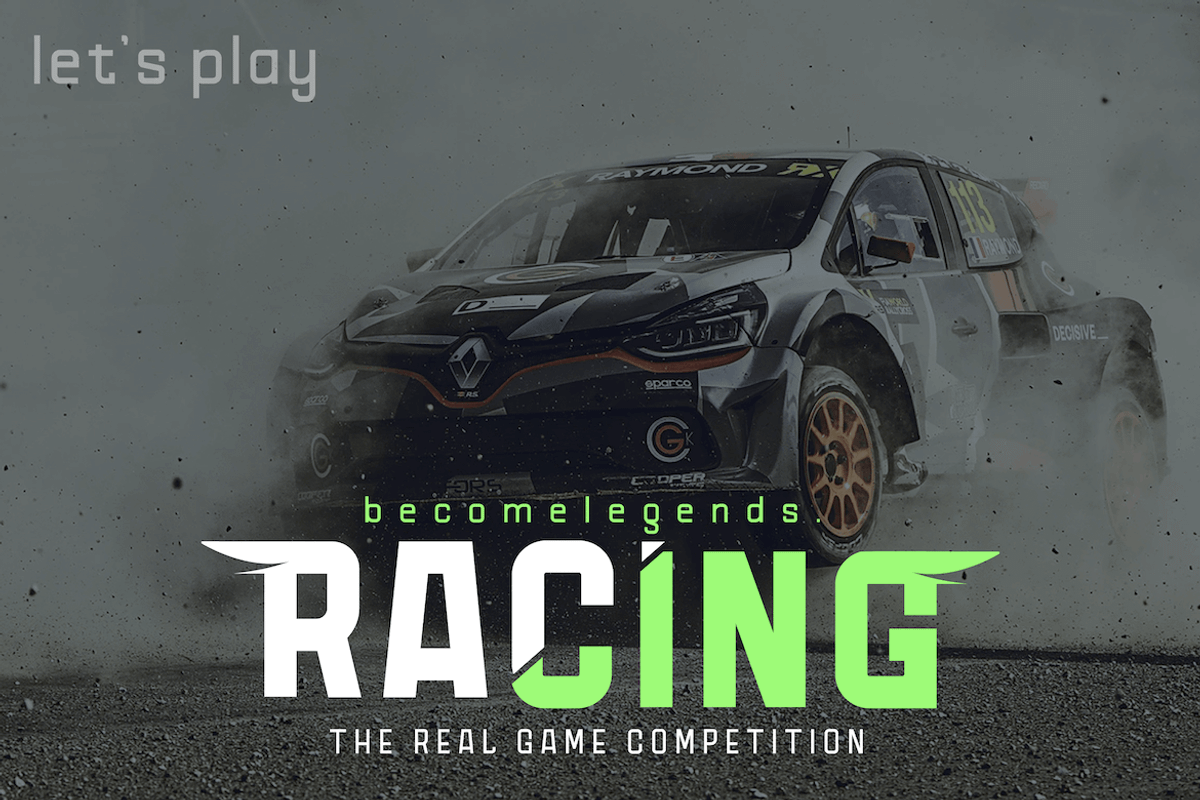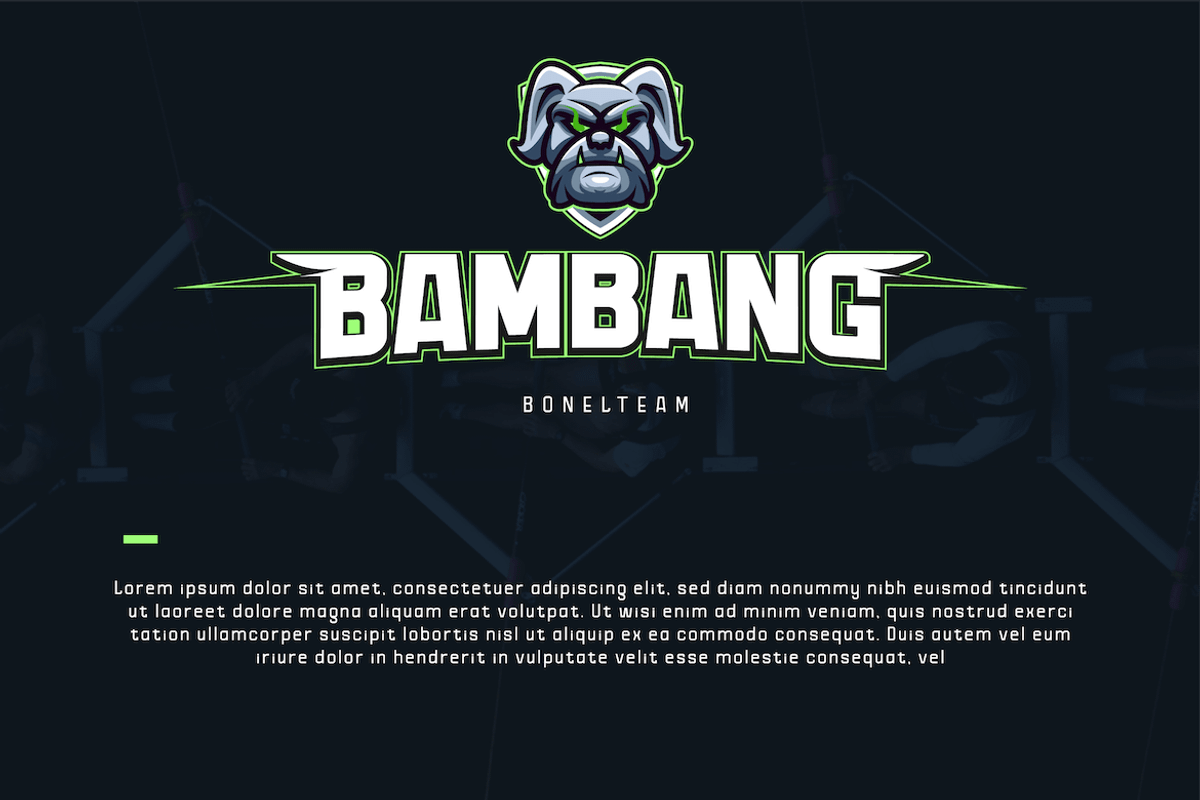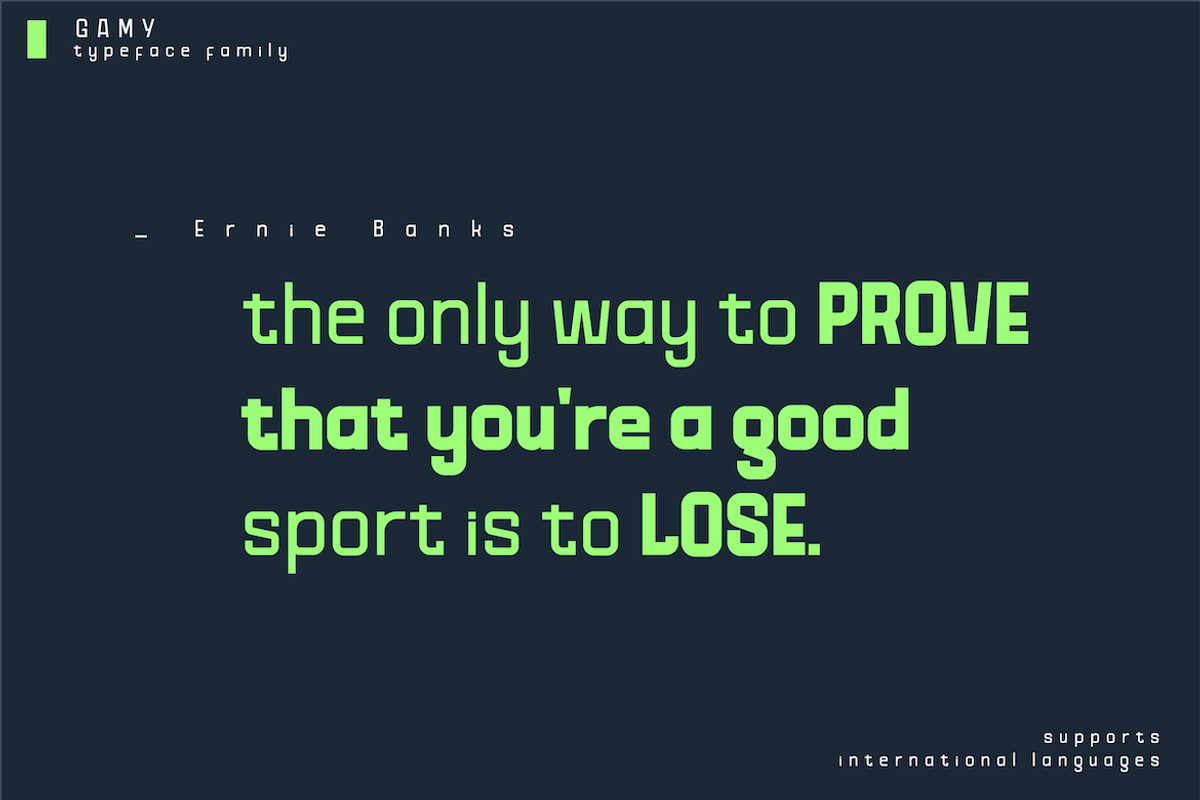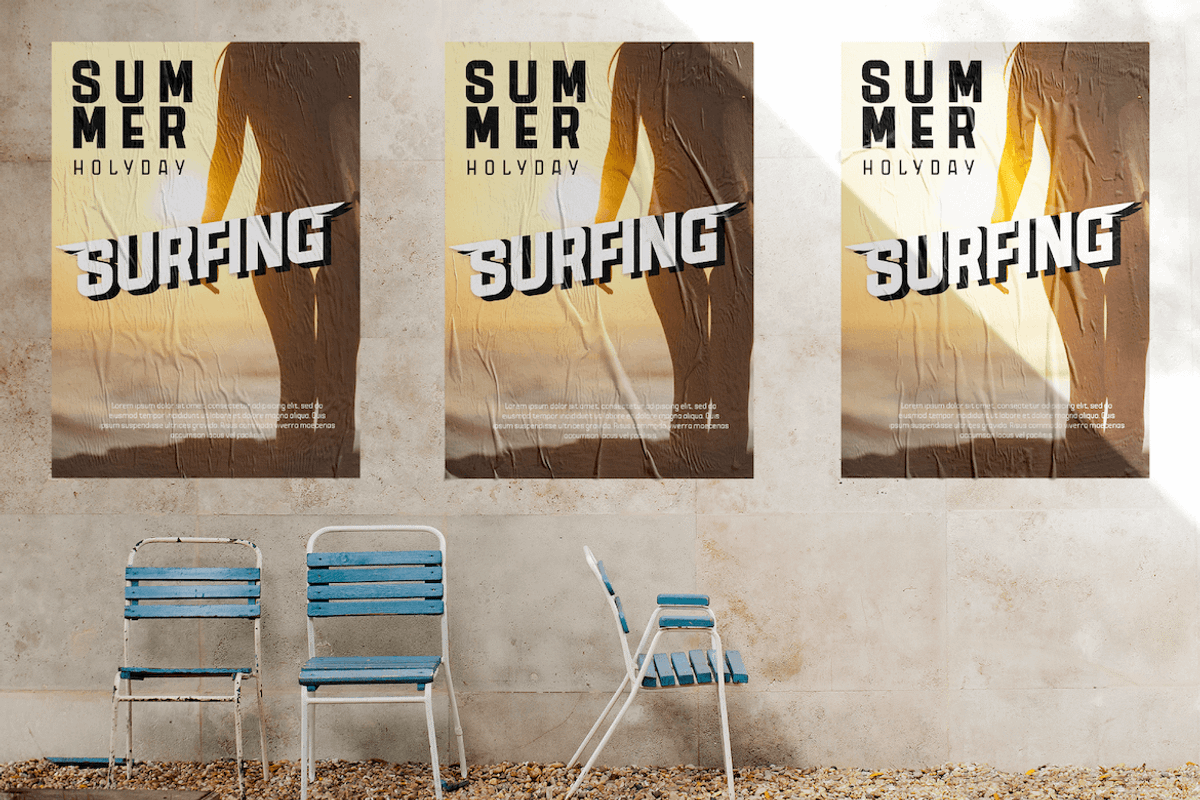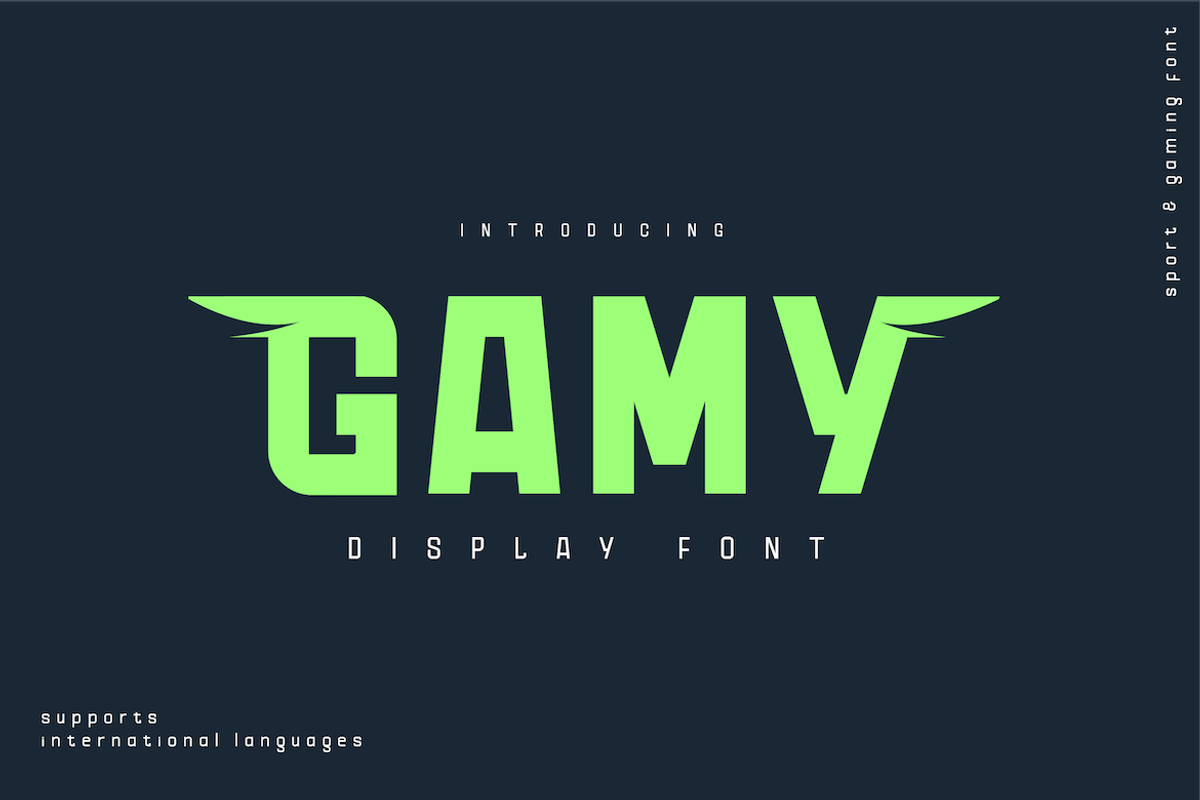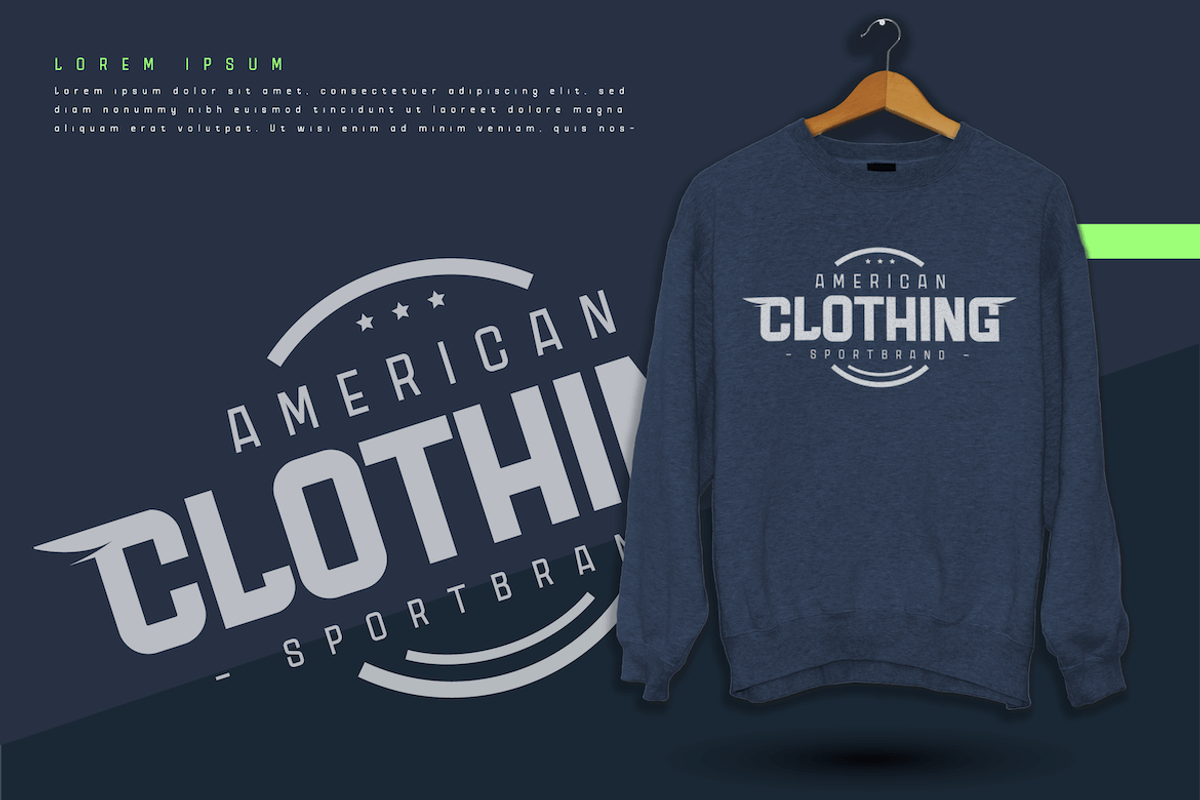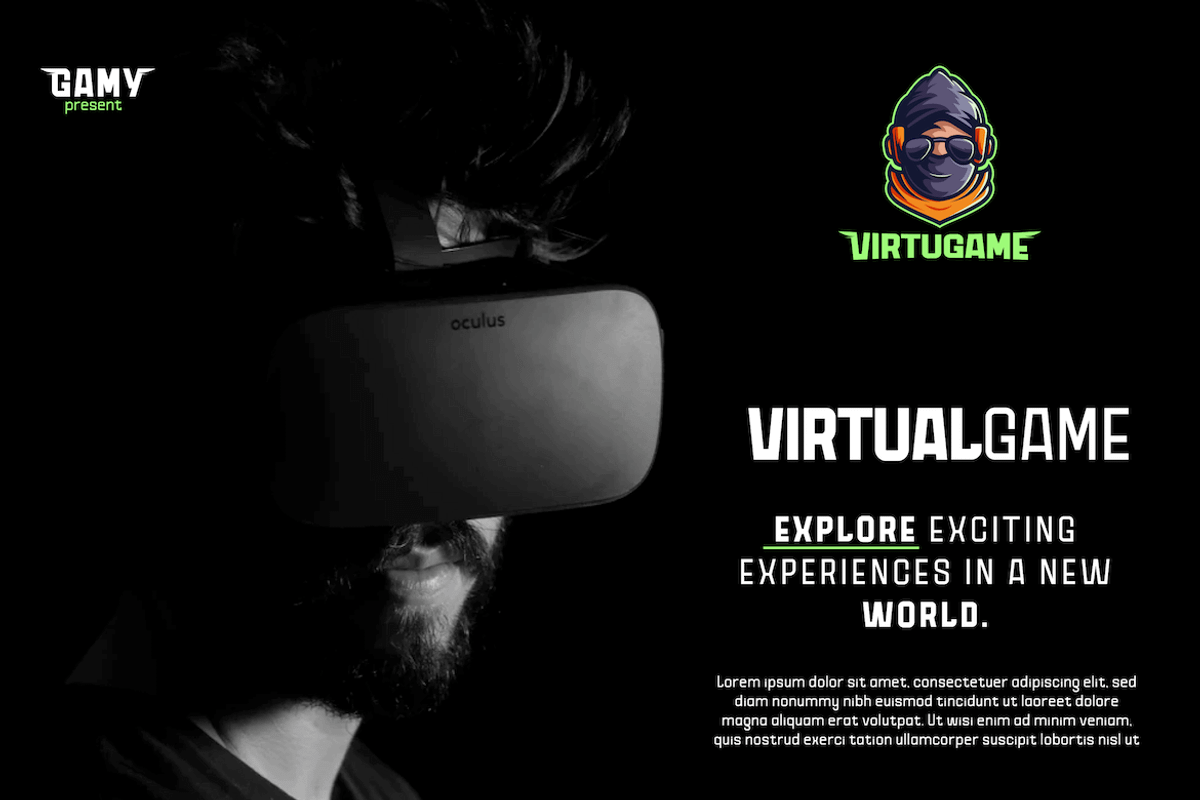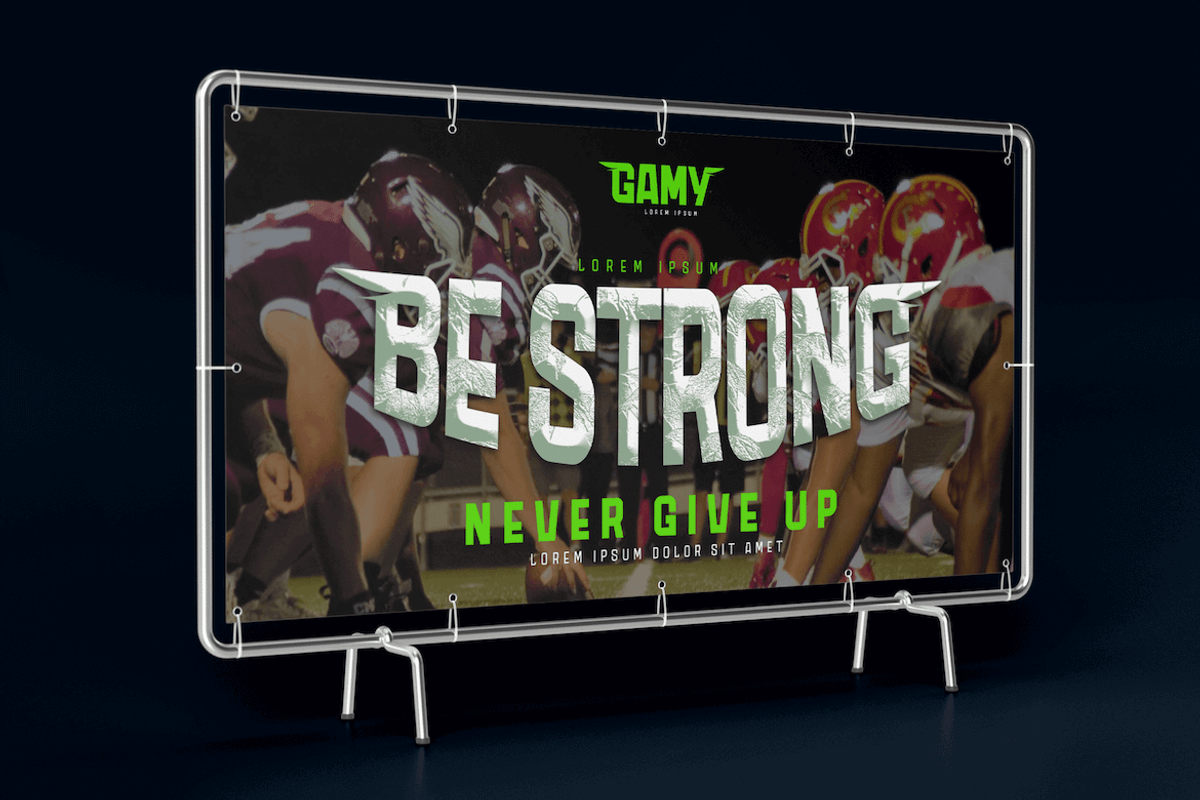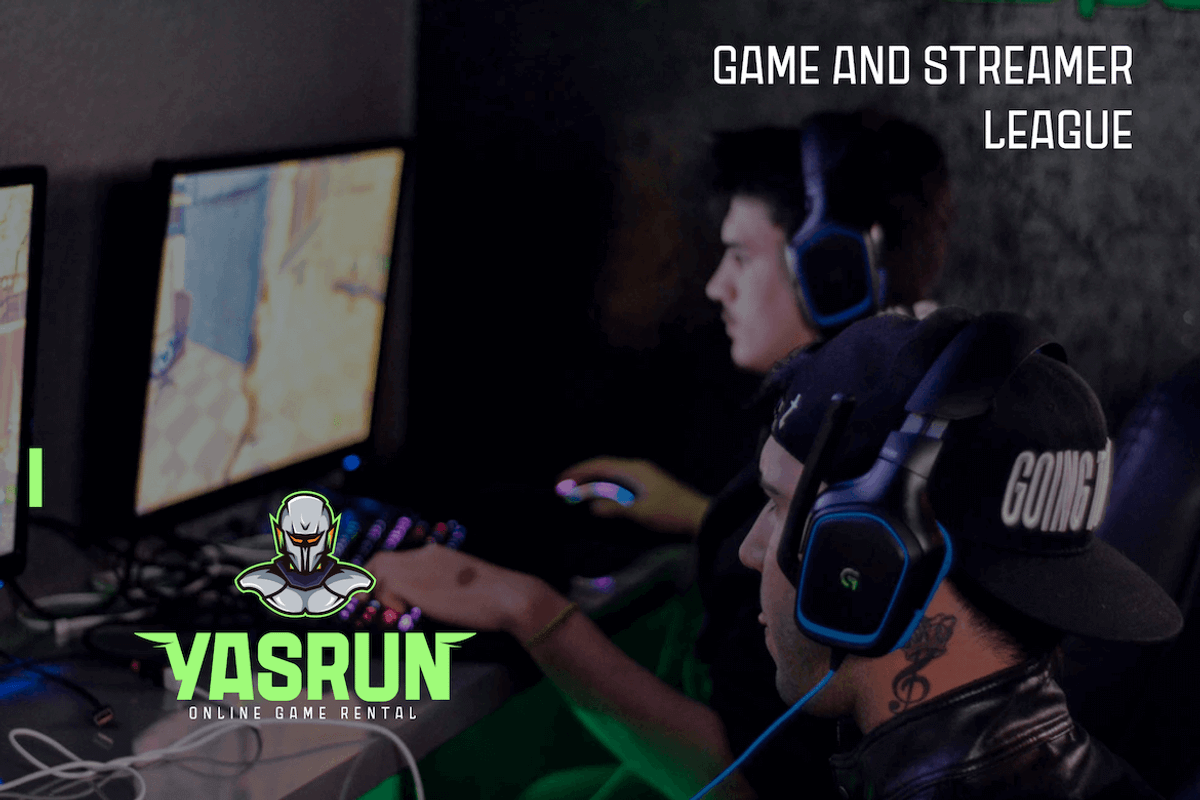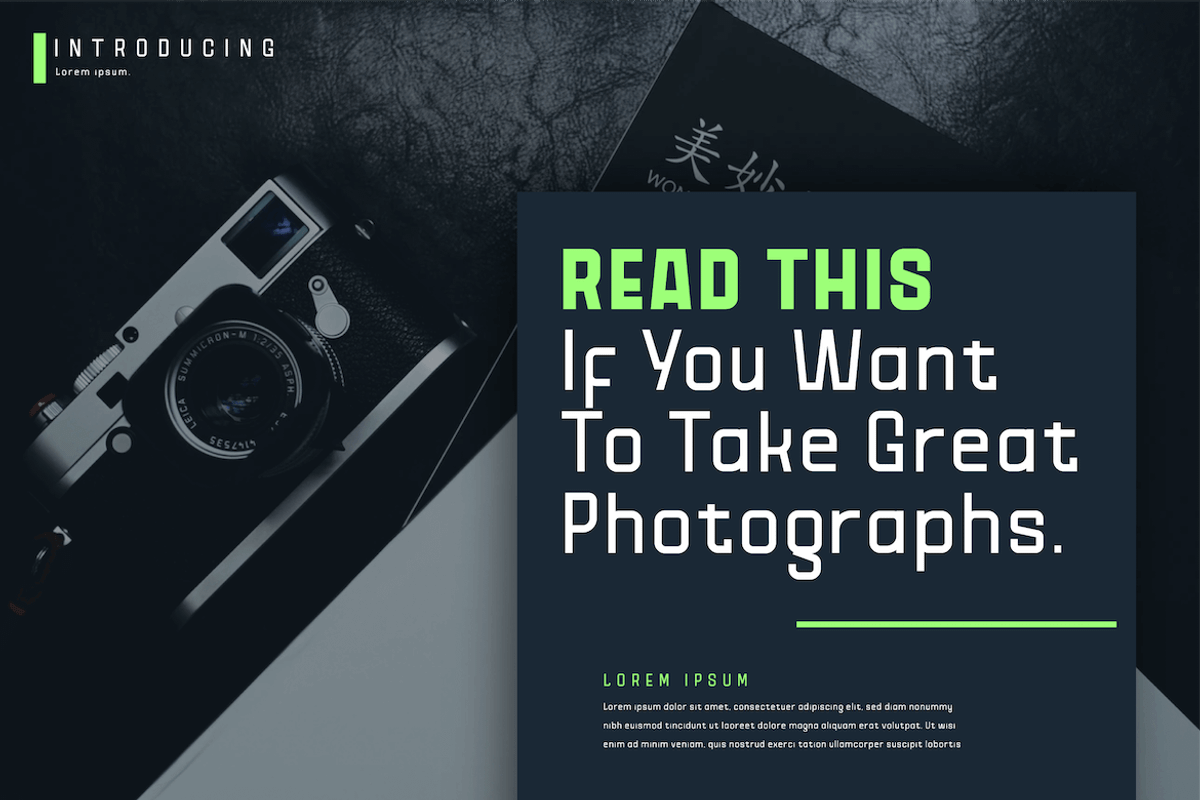
Gamy
Gamy font is a san serif font family that is designed with the appropriate composition and portion to be placed in each of your design media, has a sharp character above on each alternate capital letter making it manly and mighty for your project.
This font is perfect for games, sporting events, branding, banners, posters, movie titles, book titles, quotes, clothing, logotypes, and more.
of course, your various design projects will be perfect and extraordinary if you use this font because this font is equipped with a complimentary font family, both for titles and subtitles and sentence text. start using our fonts for your amazing projects.